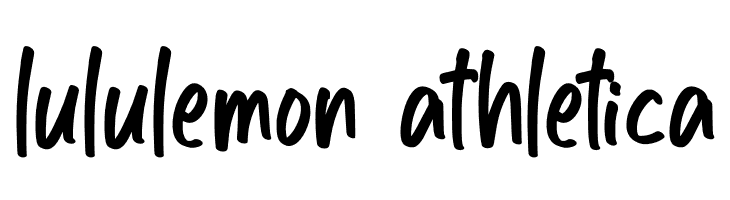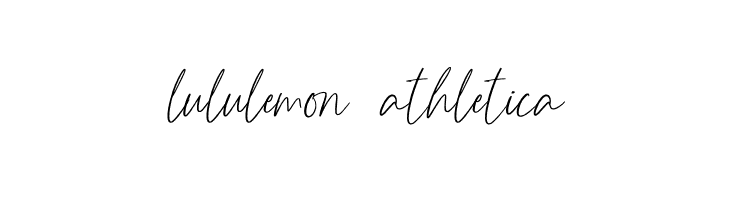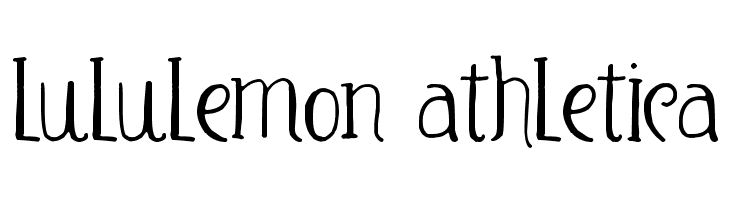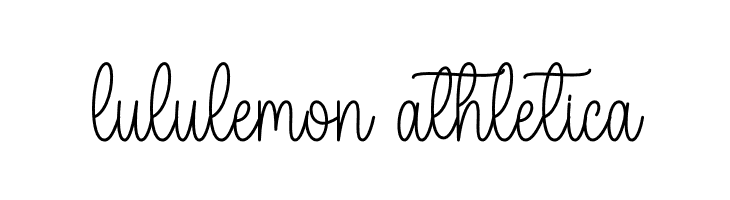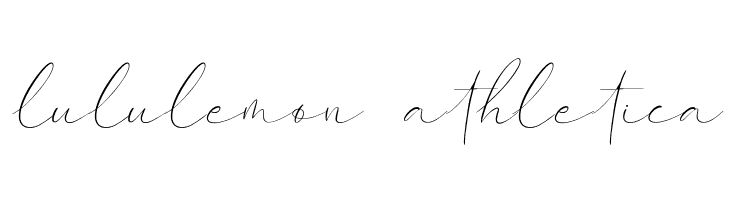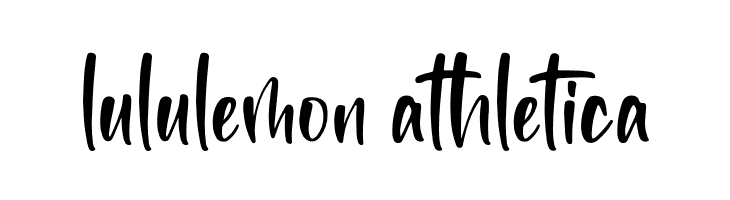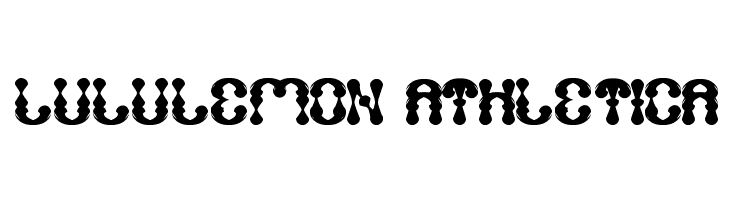
A bold, decorative font with rounded, water droplet-like shapes.
A bold and impactful font with strong, well-defined characters.
A whimsical and playful font with decorative swirls and artistic flair.
An elegant, flowing script font perfect for sophisticated designs.
A playful, script-style font with flowing, interconnected letters.
A playful, handwritten font with tall, narrow letters and smooth curves.
A fluid and elegant handwritten font with dynamic, flowing lines.
Playful handwritten font with a casual style.